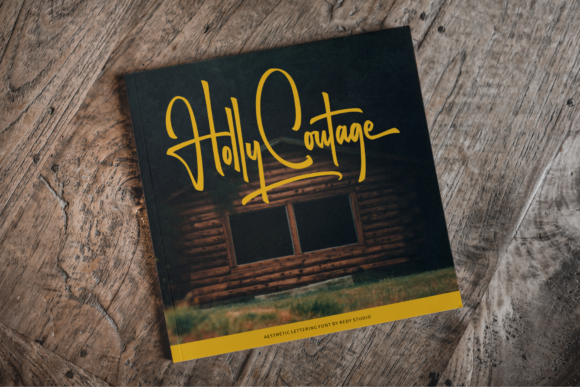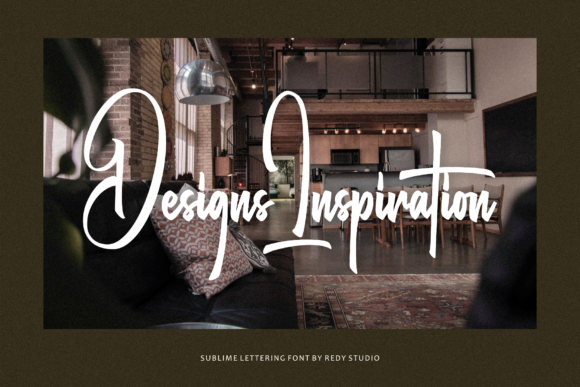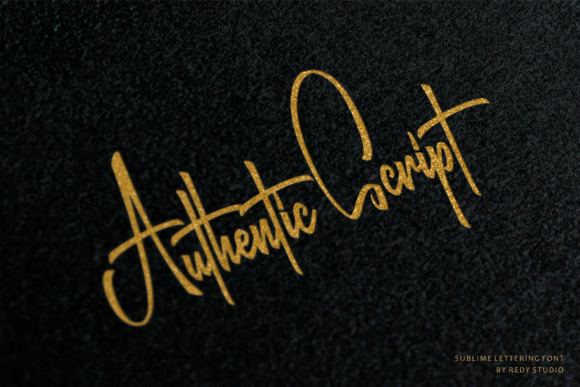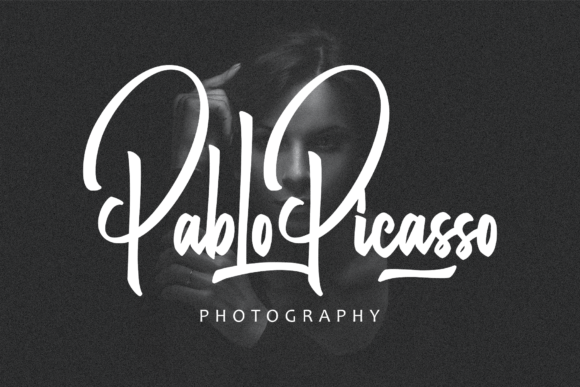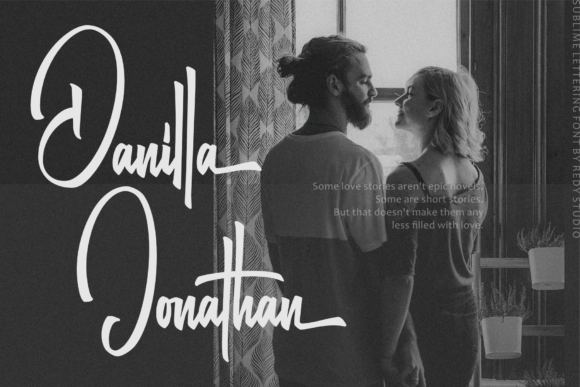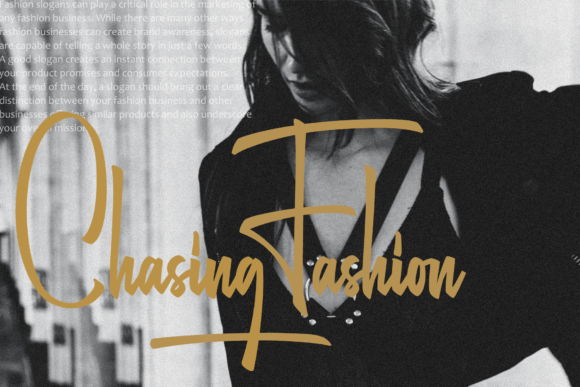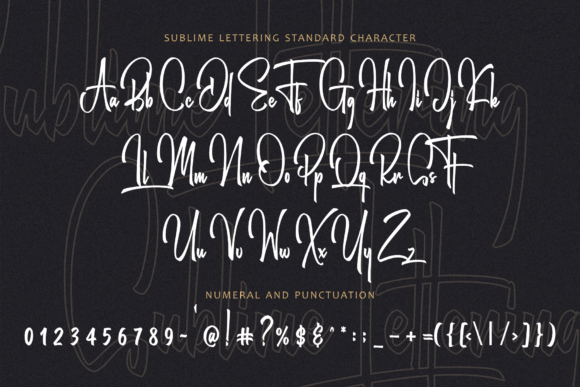
Sublime Lettering Font
About Sublime Lettering Font
Sublime Lettering is a fancy handwritten font with a unique style. This font is the ideal font for adding an adventurous and authentic feel to your next design idea!